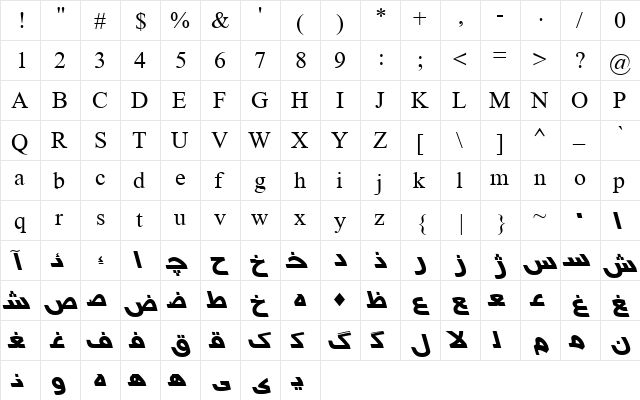
Nasim Normal
Design Context for Nasim Typeface
Nasim offers clean, dependable letterforms without strong stylistic allegiance, making it a practical choice for designers who need flexibility.